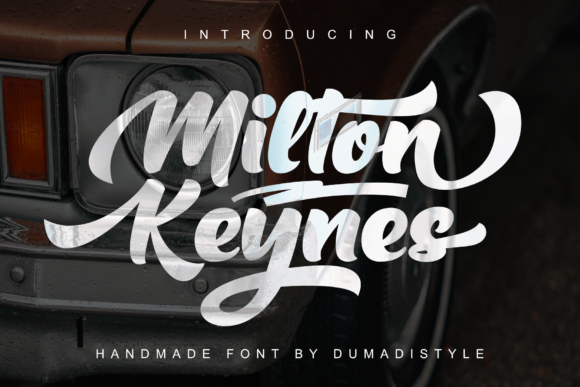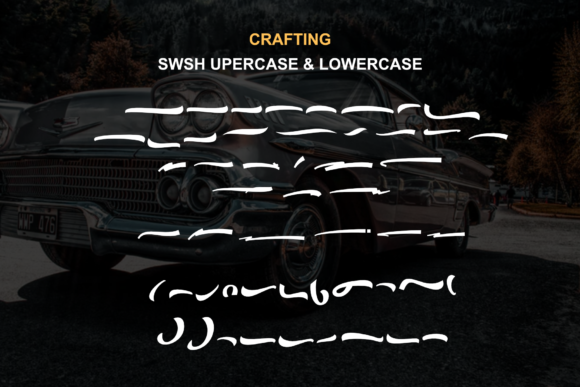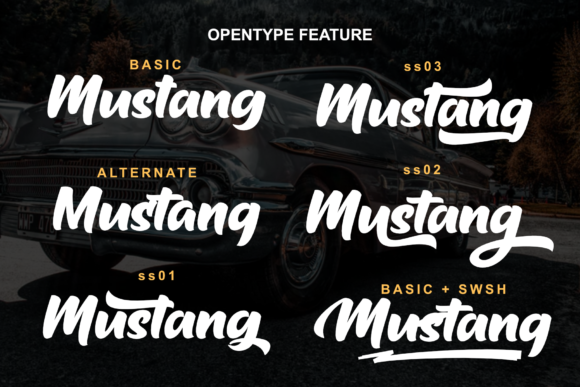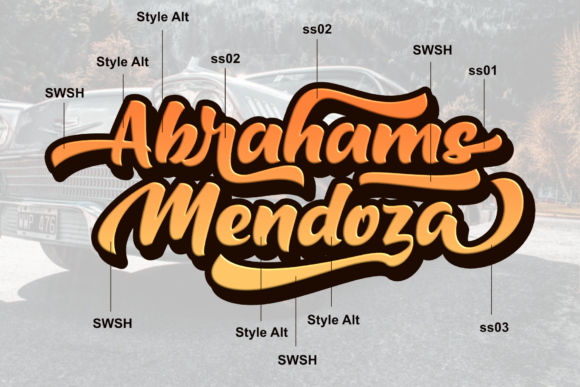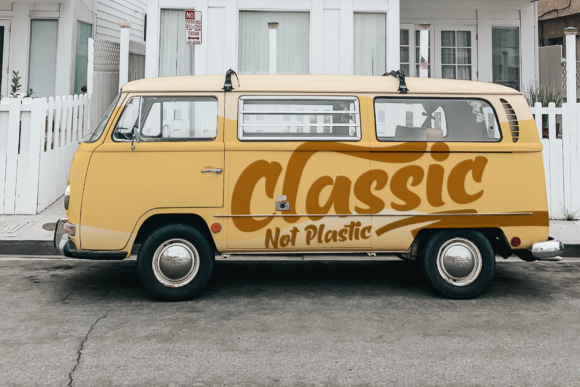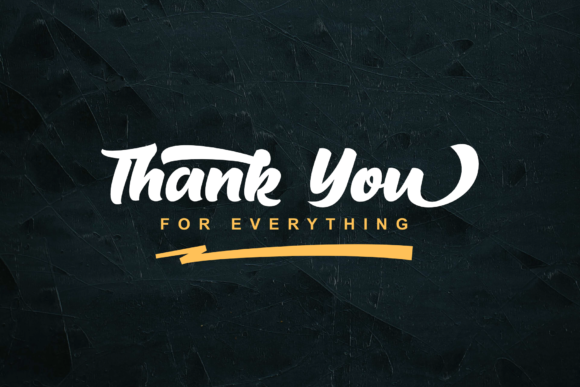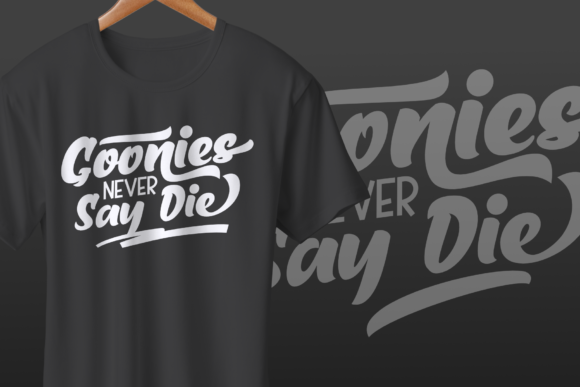
Milton Keynes Font
Milton Keynes is a modern thick handwritten font. It is great for branding logos, t-shirt designs, posters, business cards, typography, newspapers, other design projects and much more!
This font is PUA encoded which means you can access all of the cute glyphs and swashes with ease! It also features a wealth of special features including alternate glyphs and ligatures.